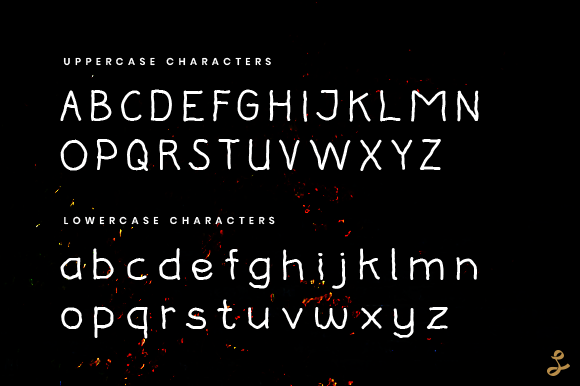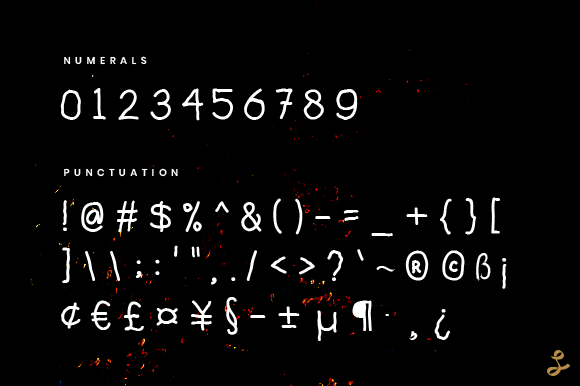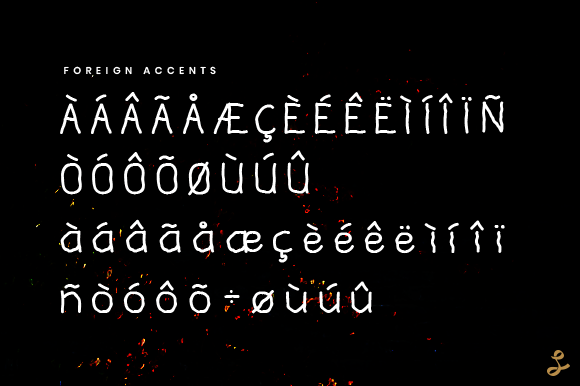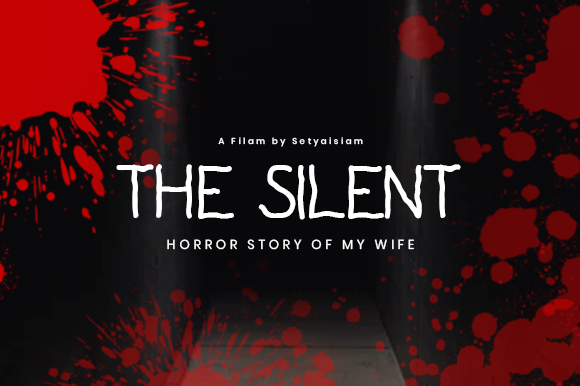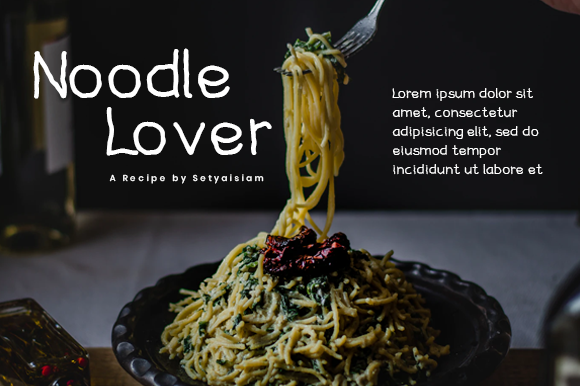
HomeScript FontsThunk Grunge Font Script Fonts Thunk Grunge Font FacebookXPinterestWhatsApp Thunk Grunge Font Poster 2 Thunk Grunge Font Poster 3 Thunk Grunge Font Poster 4 Thunk Grunge Font Poster 5 Thunk Grunge Font Poster 6 About Thunk Grunge Font Thunk Grunge is a skinny and unique script font that’s carefully hand-made. Get inspired by its original style! DOWNLOAD ON CREATIVE FABRICAThis font is sold and delivered by Creative Fabrica. Font Canyon may earn a commission if you buy through this link. People also explored Stylish Font Gendhis Java Font Simphoni Font Newyork Font Radish Font Nesia Sans Cat and Dog Font Rose Lace Font Ashemore Softened Super Family 306 0 TagsThunk Grunge Font Previous articleYuqato FontNext articleNever Be Lonely Font LEAVE A REPLY Cancel reply Comment: Please enter your comment! Name:* Please enter your name here Email:* You have entered an incorrect email address! Please enter your email address here Website: Save my name, email, and website in this browser for the next time I comment. Personal Use Free Evensong Hollow Personal Use Free Read more about this font Bonhomie Personal Use Free Read more about this font Special Day Personal Use Free Read more about this font Spring Personal Use Free Read more about this font BLOG Free vs Paid Fonts: Why Investing in Premium Fonts Is Worth It Free vs Paid Fonts: Why Premium Fonts Are Worth It in 2025 The debate of free vs paid fonts continues in the design world. While... Exploring Font Trends Using Fonts in Digital Marketing: Tips to Strengthen Your Brand Identity Fonts That Capture the Spirit of New York City